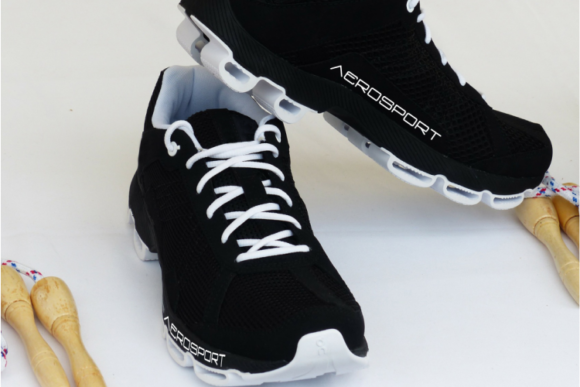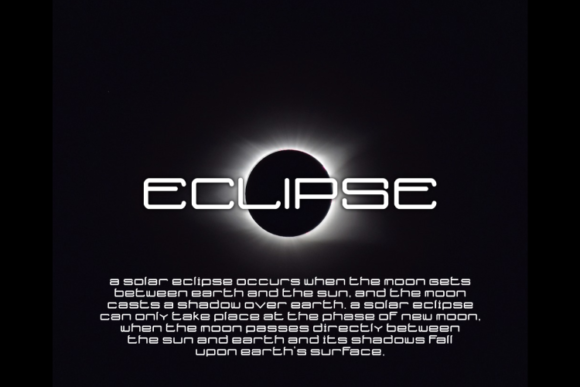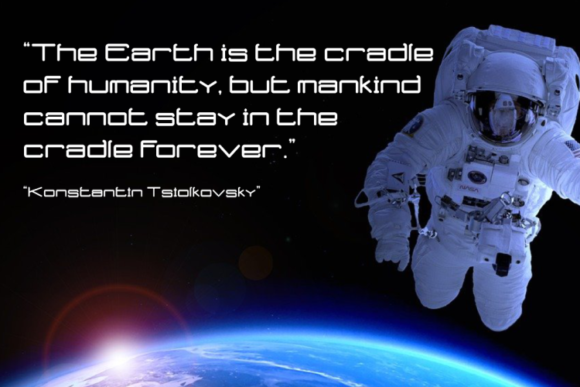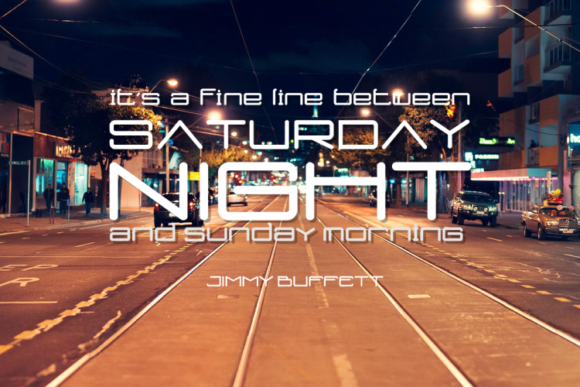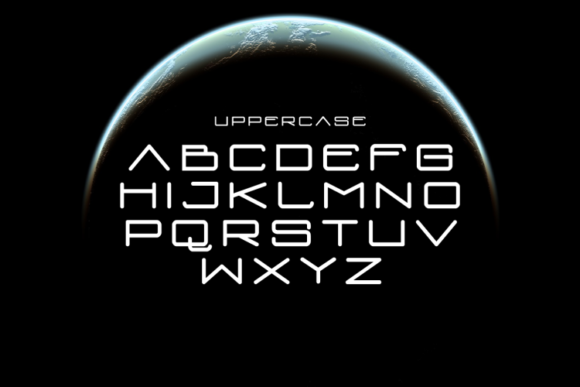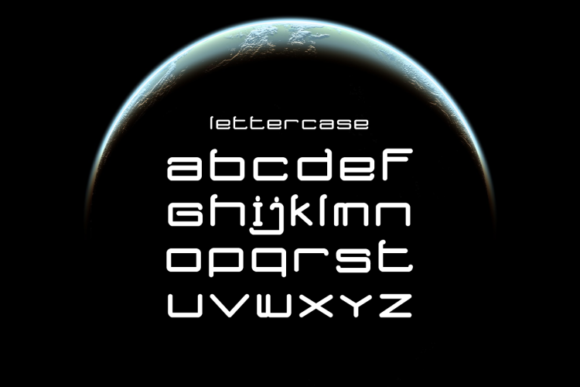
Aerospace Font: Elevate Your Design with a Futuristic Twist
In the realm of design, typography plays a crucial role in conveying the message and aesthetic of a project. With the ever-evolving trends in technology, automotive, and sports, the demand for modern and sleek fonts has increased. This is where the Aerospace Font comes into play, meticulously crafted for text display purposes that embody the spirit of innovation and dynamism.
The Genesis of Aerospace Font
The Aerospace Font is a product of meticulous design and a deep understanding of current trends. Inspired by the futuristic vibes of technology, the sleekness of automotive designs, and the boldness of sports branding, this font is a fusion of modernity and functionality. It’s not just a typeface; it’s an experience, designed to elevate your design projects to new heights.
Key Features of Aerospace Font
- Modern Aesthetic: The Aerospace Font boasts a contemporary look that is perfect for designs requiring a fresh and cutting-edge feel. Its sleek lines and curves make it instantly recognizable and memorable.
- Versatility: Whether it’s for a website, a layout design, or any digital platform, this font adapts seamlessly, ensuring your message is conveyed with clarity and style.
- Legibility: Designed with readability in mind, the Aerospace Font ensures that your text is easily comprehensible, making it ideal for both header and main text.
- Flexibility: Available in various weights, the Aerospace Font can be used across different mediums, from digital screens to print materials, offering designers a wide range of creative possibilities.
Suitable Applications of Aerospace Font
The Aerospace Font is incredibly versatile, making it suitable for a myriad of design projects. Here are some of the areas where it truly shines:
- Web Design: Use it as your main text or header text to give your website a modern and professional look. Its clean lines and contemporary feel make it perfect for tech startups, automotive, sports, and lifestyle websites.
- Graphic Design: From brochures and flyers to posters and banners, the Aerospace Font can add a dynamic touch to your print materials, making them stand out in a crowded space.
- Branding and Identity: For companies looking to revamp their brand identity or for new startups aiming to make a statement, the Aerospace Font offers a fresh and modern typography solution that can be used across all branding materials.
Why Choose Aerospace Font?
In a world where first impressions matter, the typography of your design can make all the difference. Here are a few reasons why the Aerospace Font should be your go-to choice:
- Uniqueness: Stand out from the crowd with a font that is both unique and impactful.
- Professionalism: Convey a sense of professionalism and attention to detail with a font that is clearly crafted with precision.
- Trend-Relevance: Stay on top of current design trends with a font that encapsulates the spirit of modern design.
The Aerospace Font is more than just a typeface; it’s a design statement. Crafted with the trends of technology, automotive, and sports in mind, it offers a fresh and modern aesthetic that can elevate your design projects. Whether you’re a designer looking for a versatile font for your next project or a brand aiming to refresh your identity, the Aerospace Font is a choice that promises to deliver results. Embrace the future of design with the Aerospace Font and take your projects to new heights.